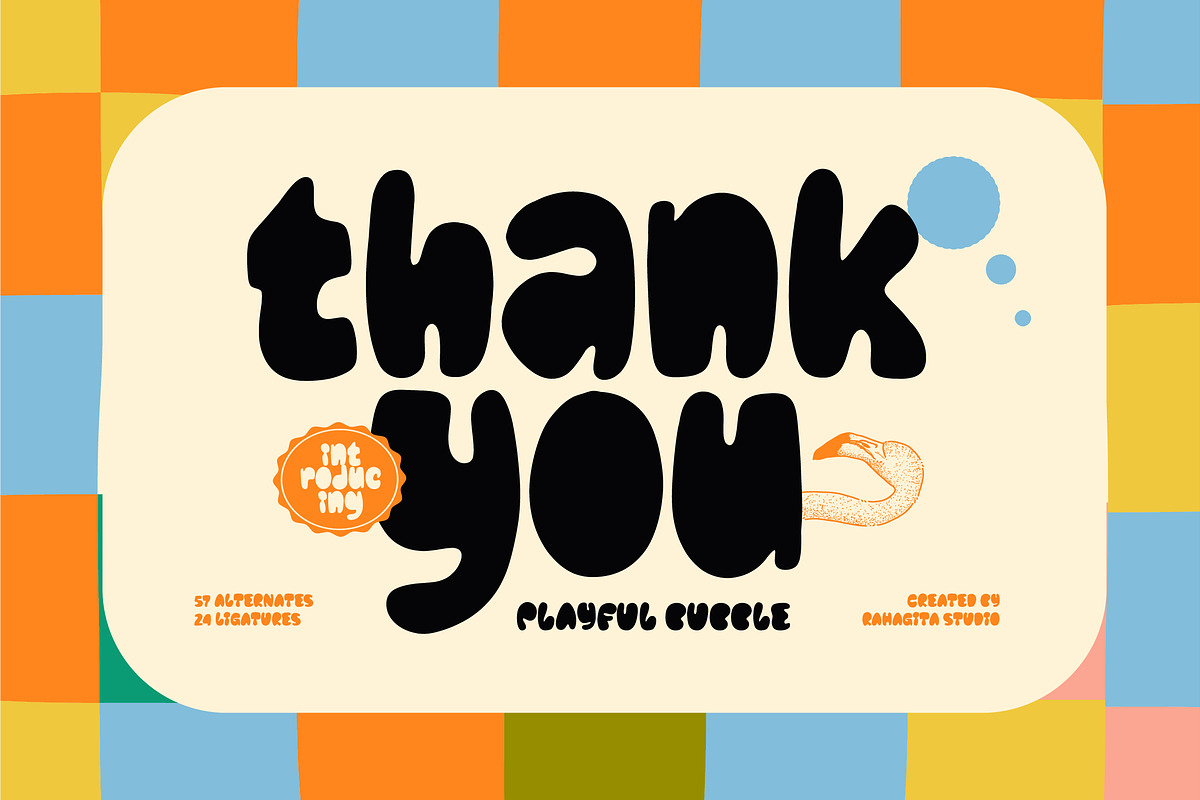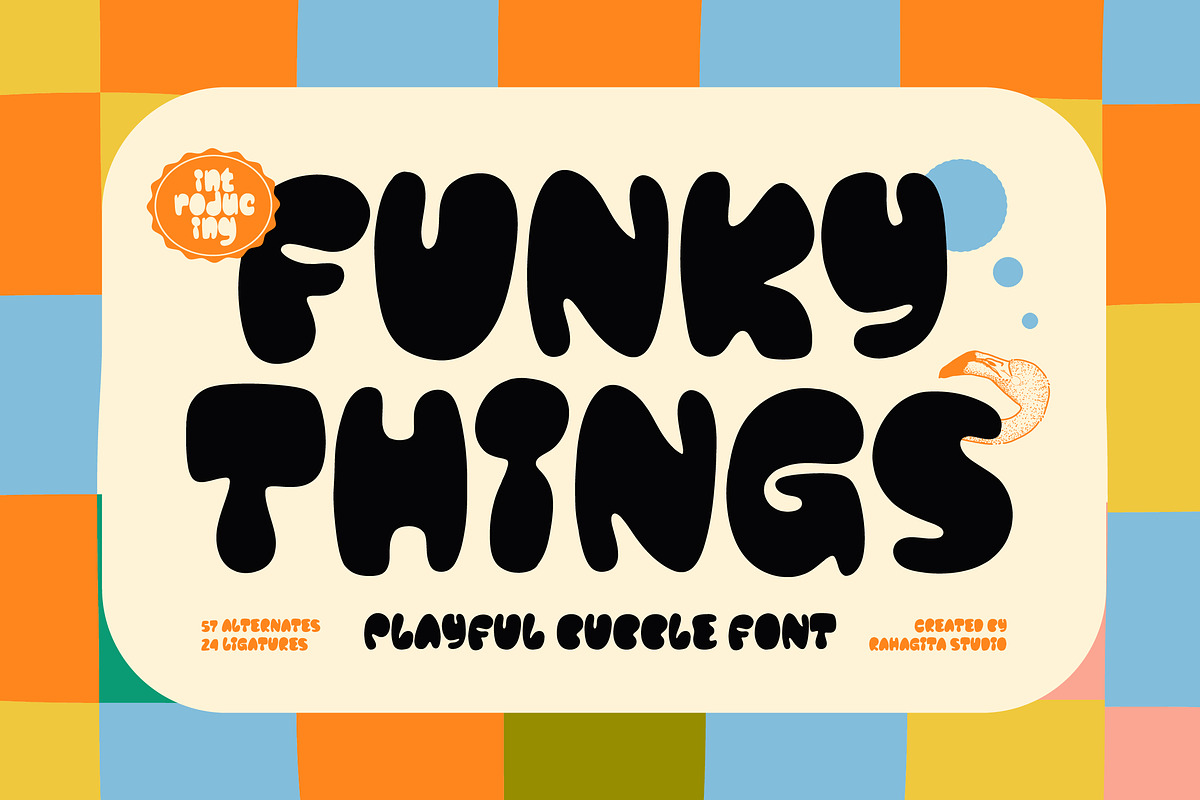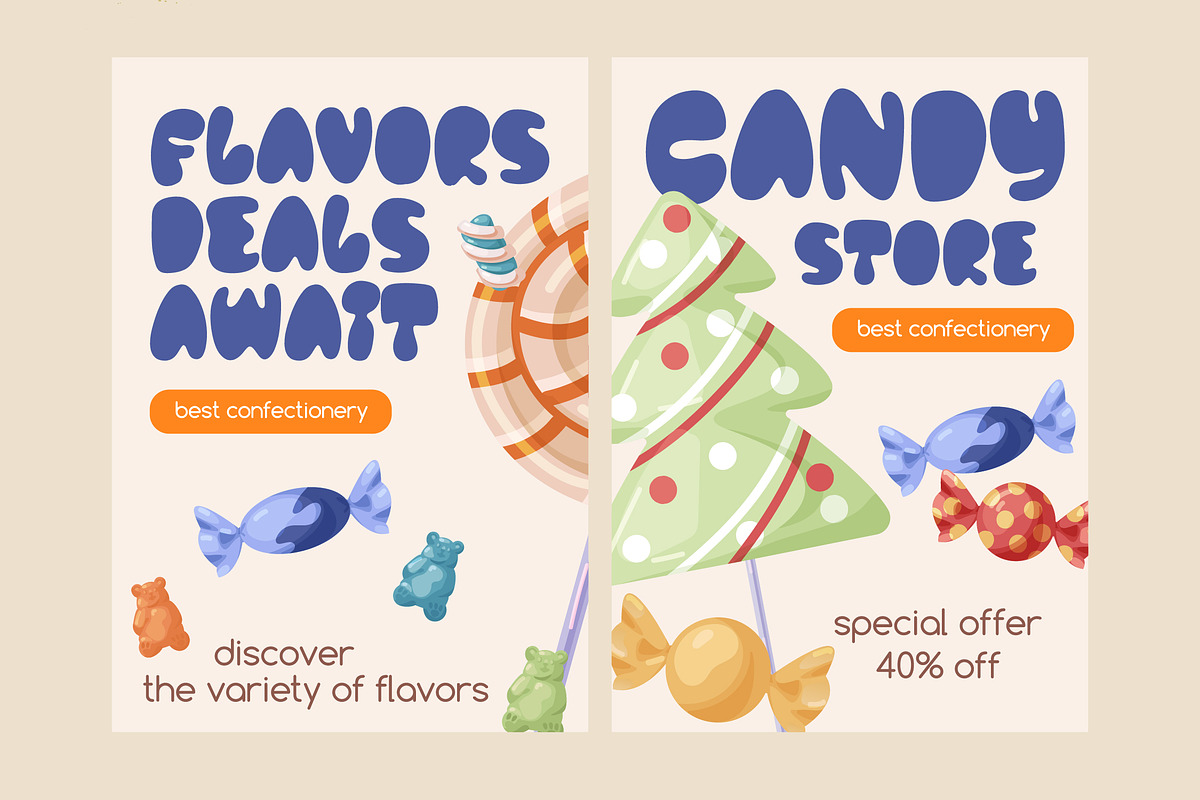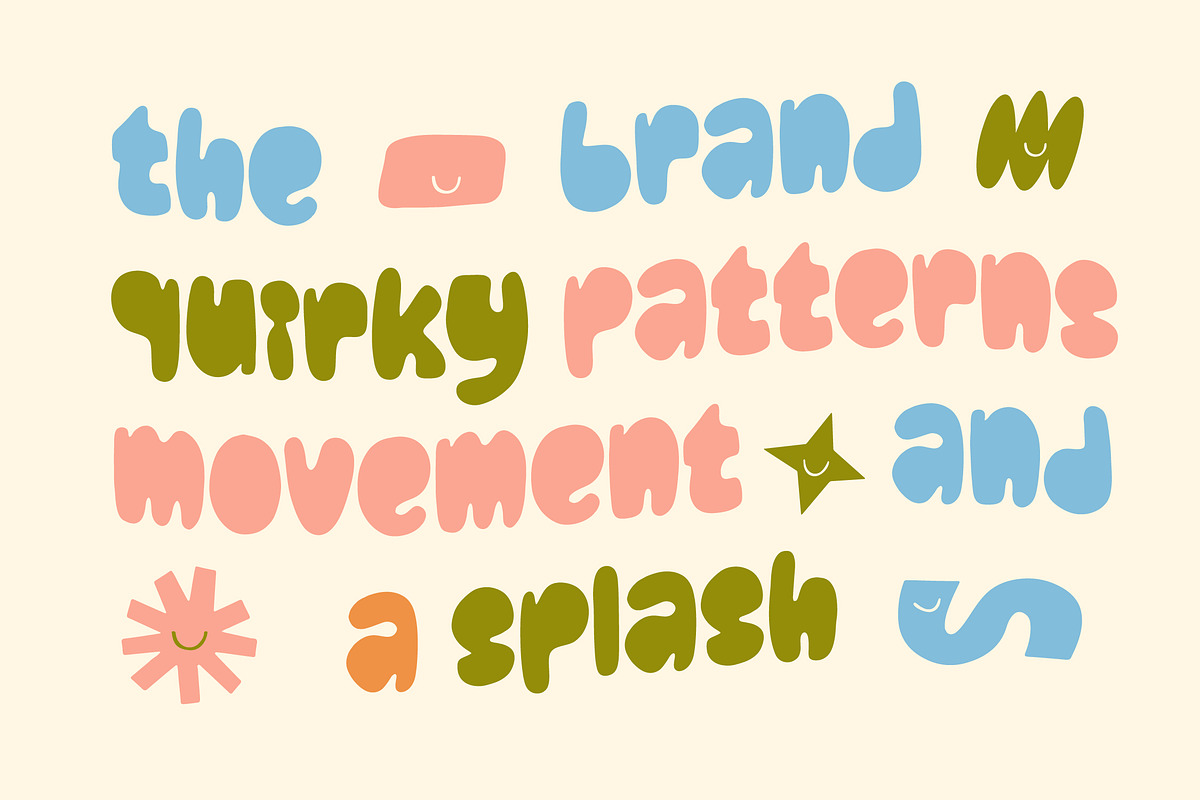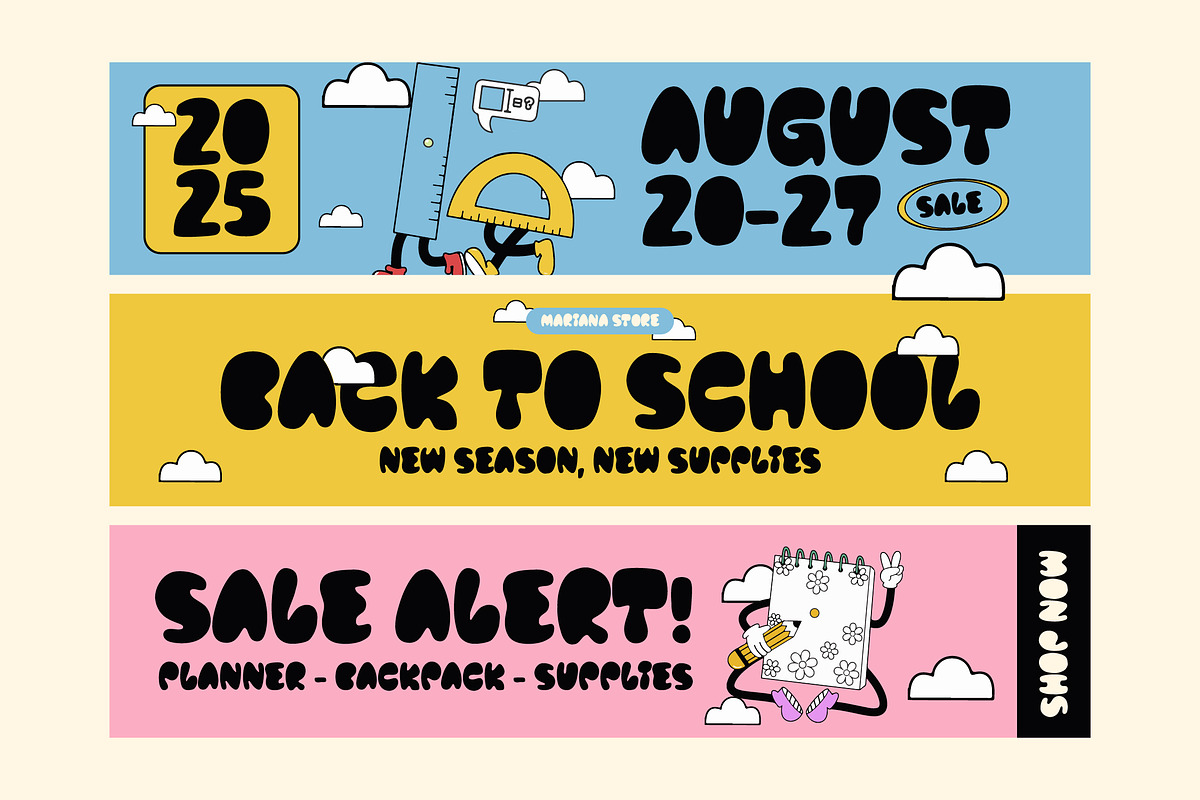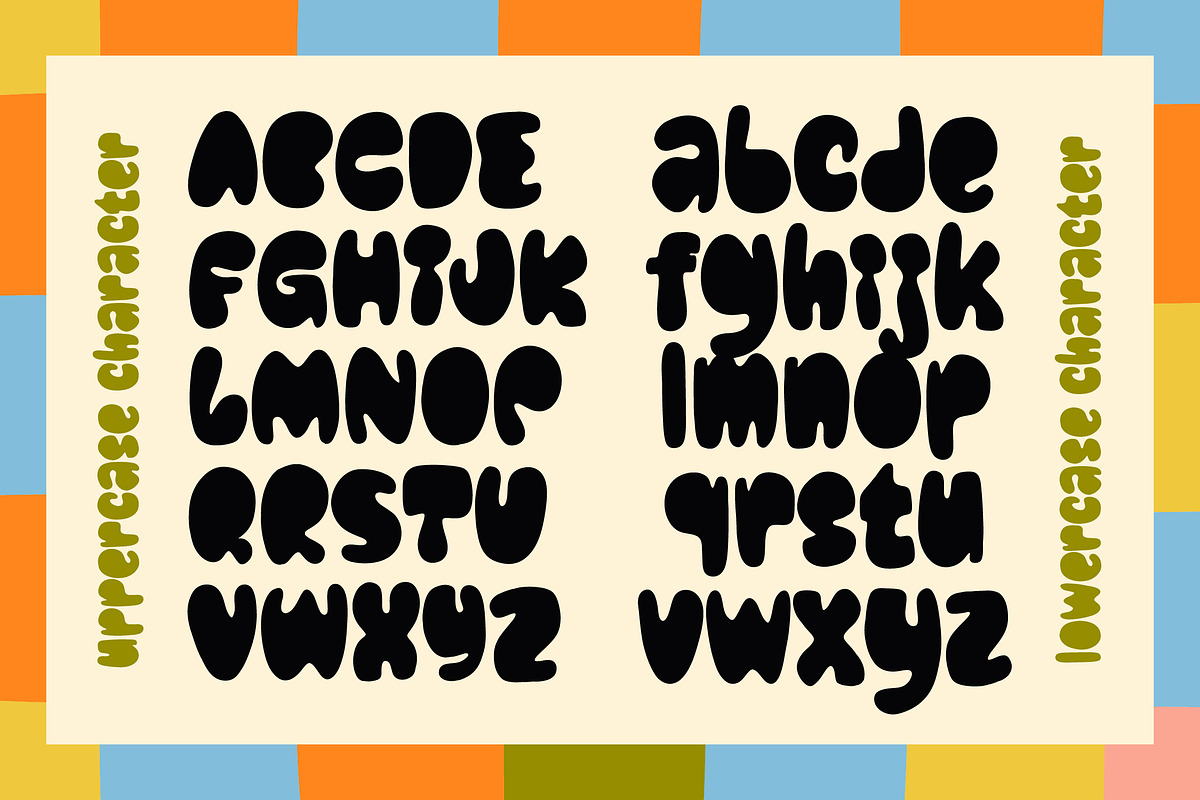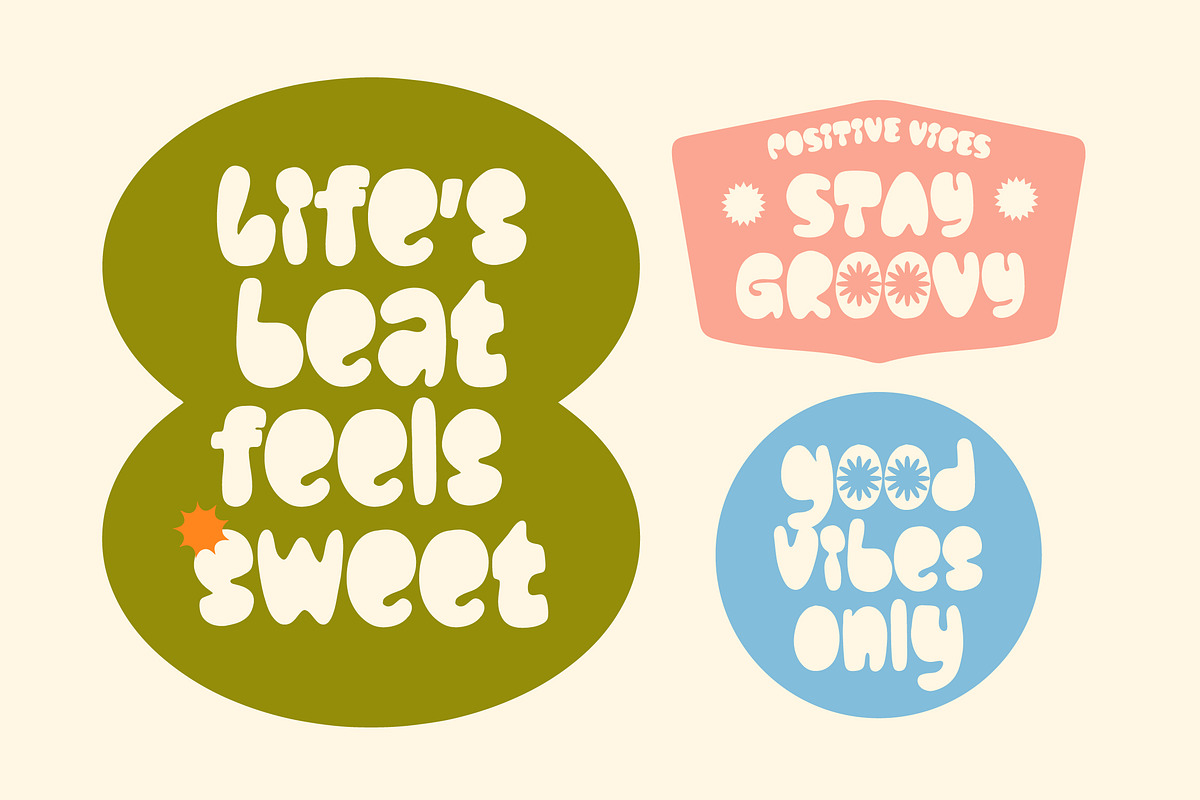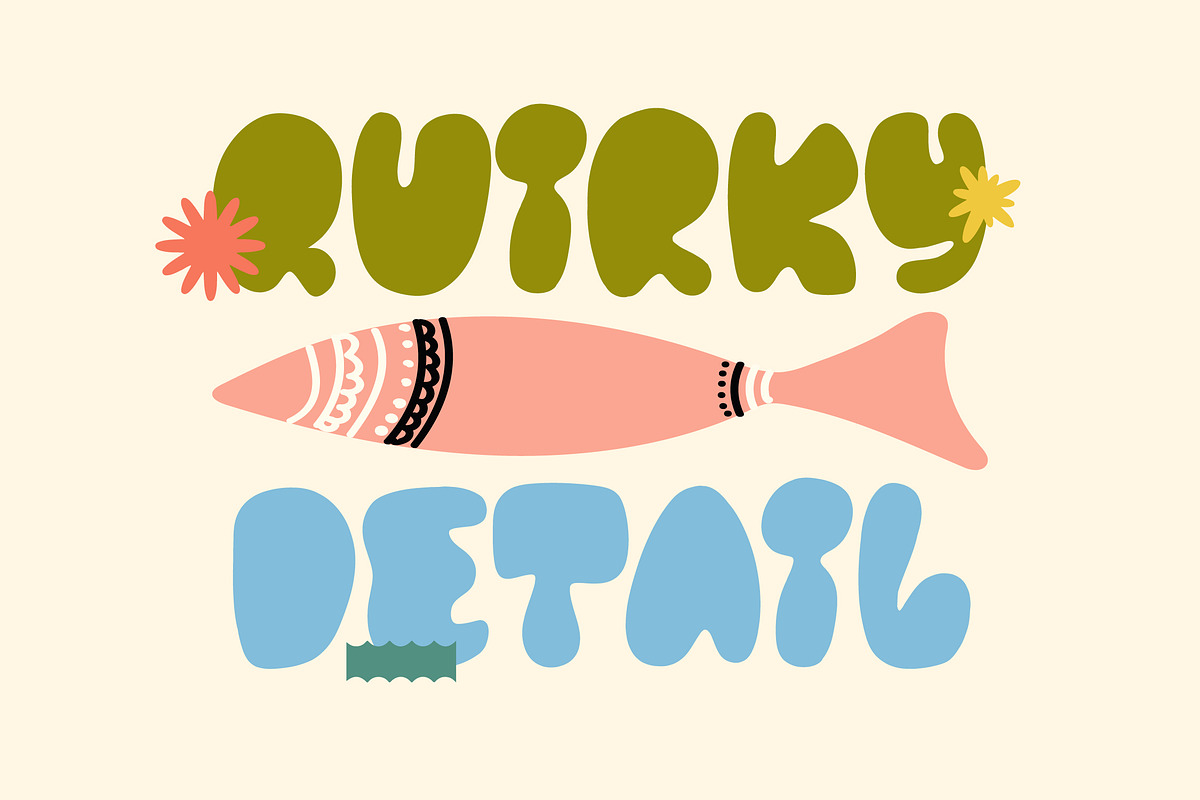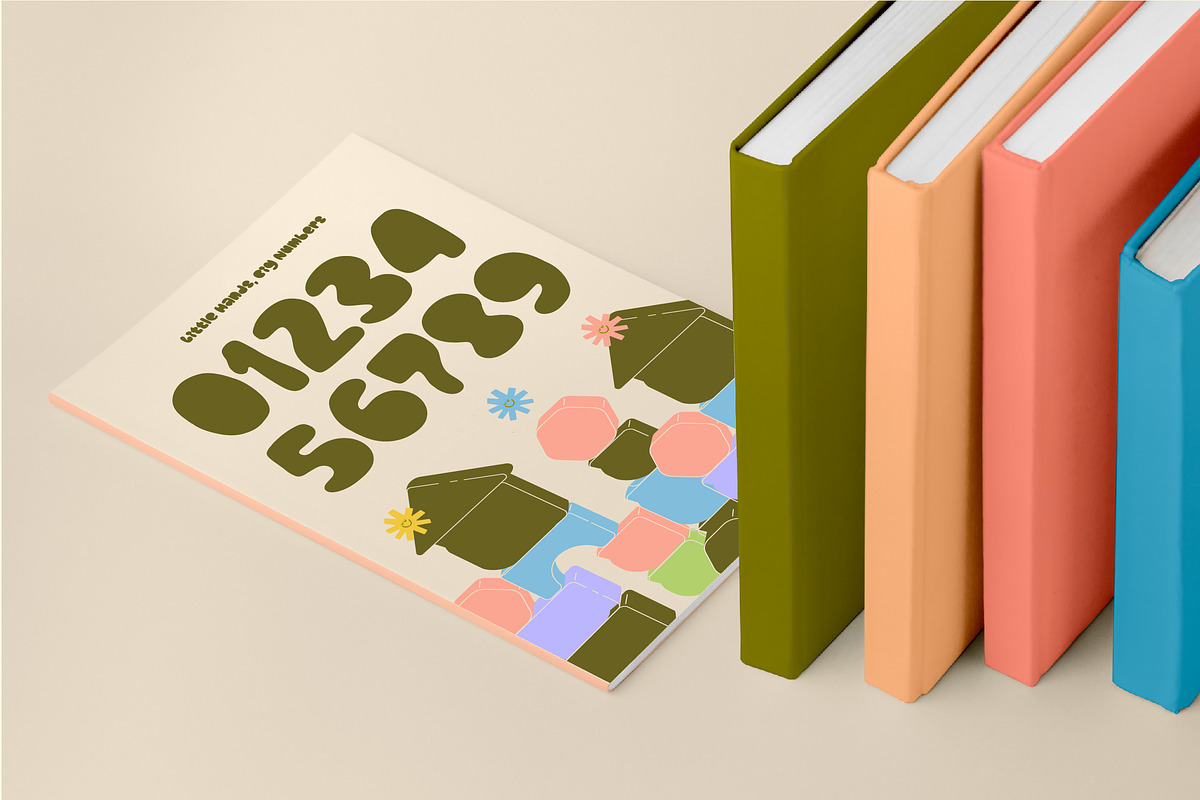
Funky Things
Get ready to add a burst of joy to your designs with Funky Things, a playful bubble font that radiates fun, creativity, and retro charm! Perfectly crafted for projects that need a touch of happiness and movement, Funky Things brings quirky curves, bouncy shapes, and a groovy vibe that stands out anywhere.